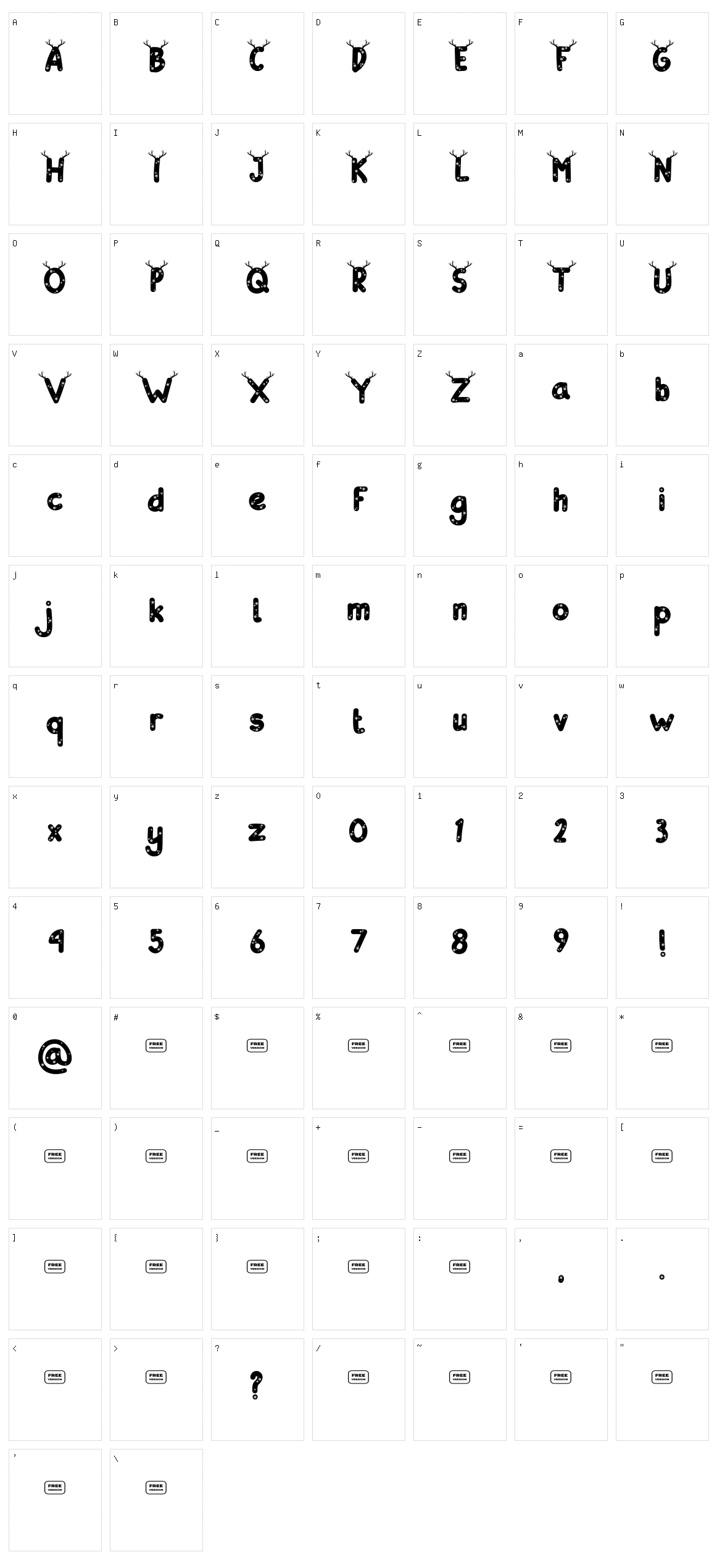
The free font Donder is carefully designed by Typefactoryco, showcasing a thoughtful balance of creativity and usability and falls under the Christmas font style. When you download the ZIP file, it contains only 428.96 KB of font files, making it lightweight and quick to download. Please review the license details below to understand permitted usage and distribution rights. If license information is not available, we recommend using this font for personal projects only or contacting the author directly for commercial usage permissions.